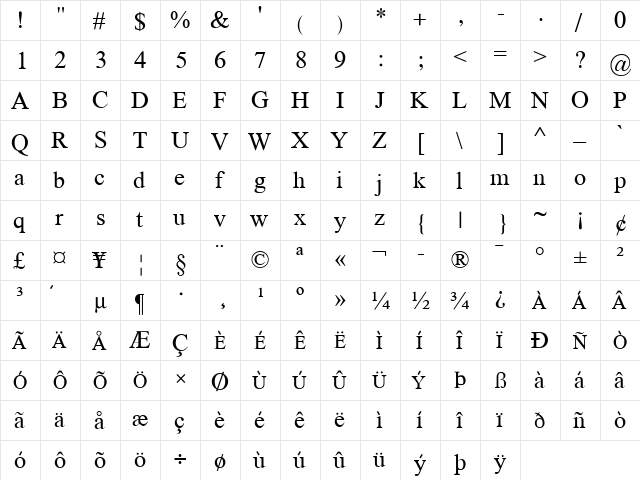
KadmosU Regular
| Foundry | Donald Mastronarde, after Marc Cogan |
| Designer | Donald Mastronarde, after Marc Cogan |
Design Context for KadmosU Typeface
KadmosU takes a measured approach to typography — its balanced proportions and neutral character make it a reliable workhorse for both digital and print work.